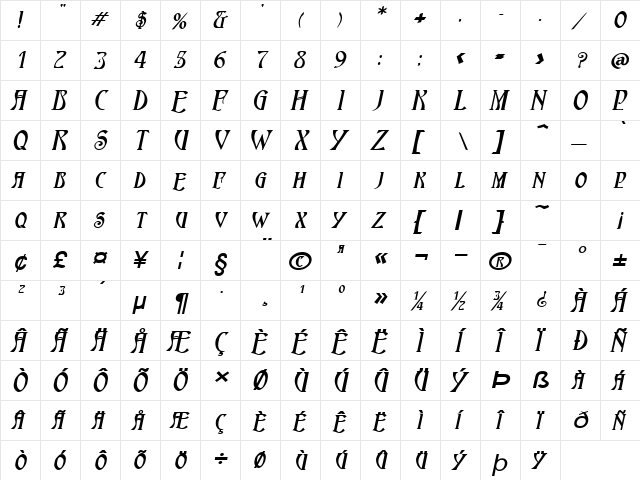
NouveauExtended Bold Italic Font Preview
NouveauExtended Bold Italic
NouveauExtended Bold Italic Font Details
Design Context for NouveauExtended Typeface
NouveauExtended is a composed and adaptable typeface that performs quietly and consistently across a wide range of design contexts. The slanted form adds forward momentum and visual energy. The heavy weight commands attention and anchors typographic hierarchies.